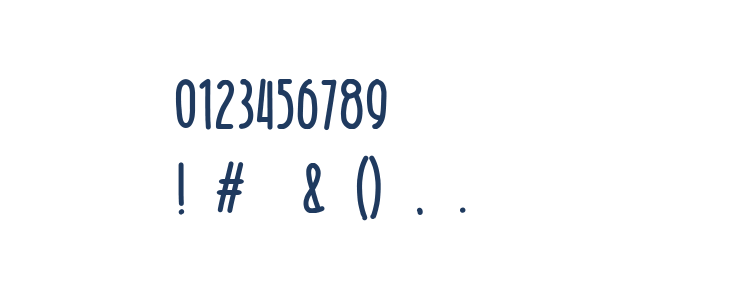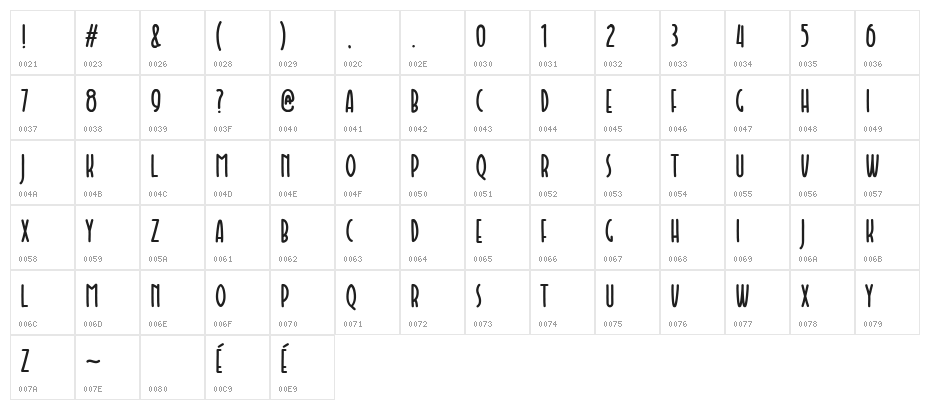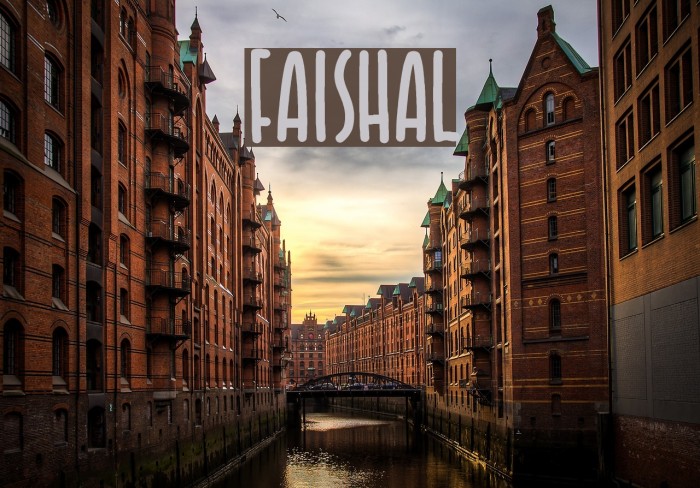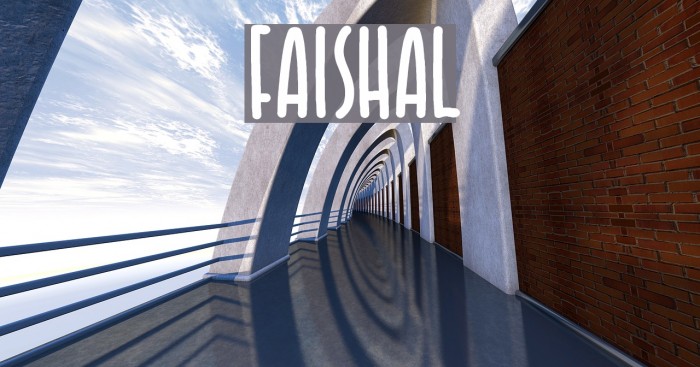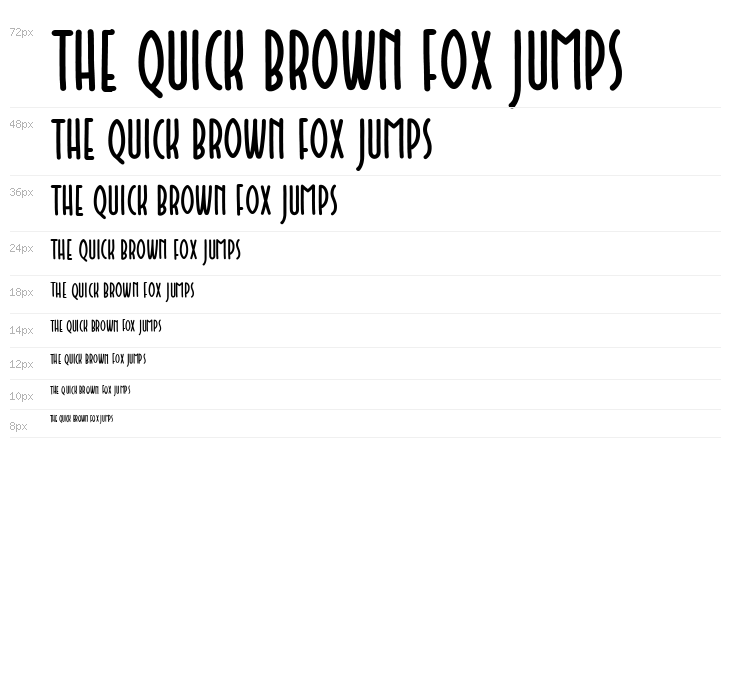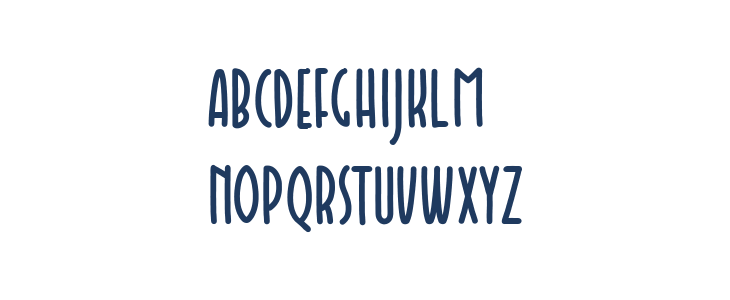
Faishal Font
Faishal Description
This font features a playful and rounded design, characterized by its tall, narrow letters with slightly curved edges. The uppercase and lowercase letters maintain a consistent height, creating a uniform appearance. The numbers and special characters follow the same style, ensuring cohesiveness across all elements. The strokes are even, with a medium contrast that adds a touch of elegance without compromising readability. This font's unique style makes it suitable for projects that require a friendly and approachable aesthetic.
| Proposed Projects | Ideal for children's books, playful branding, greeting cards, and casual invitations. |